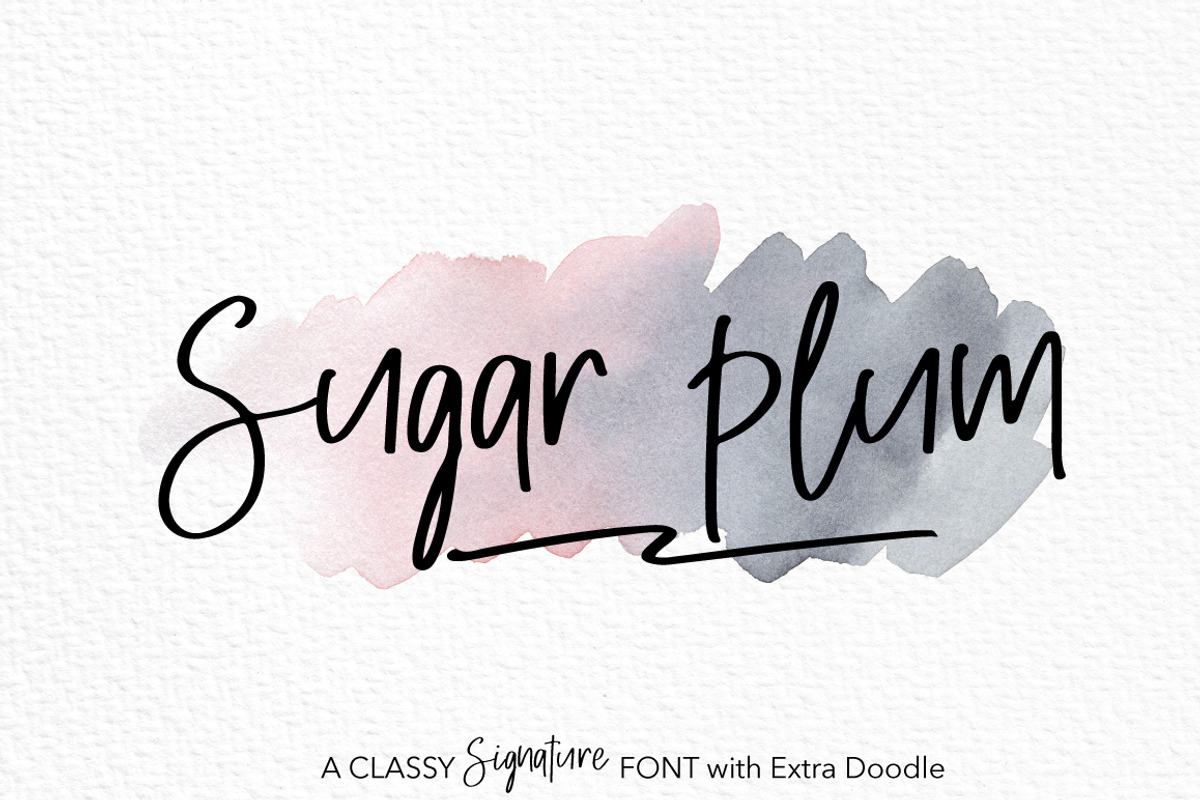
You must purchase this font for commercial use. However, you can download Sugar Plum with Extra Doodle Font Free Download for testing purposes. Sugar Plum is a playful and whimsical script font that brings a touch of sweetness and charm to any design. Paired with extra doodles, this font offers a creative and fun vibe, perfect for projects that need a bit of extra flair. It's ideal for crafting invitations, social media posts, greeting cards, logos, and children's designs.
The extra doodle elements add a unique touch, featuring fun, hand-drawn illustrations that perfectly complement the font’s flowing, friendly letterforms. Whether you're designing for a quirky brand, a fun event, or a personal project, Sugar Plum with Extra Doodle Font Free Download offers plenty of versatility and creativity.